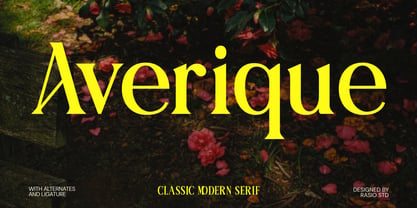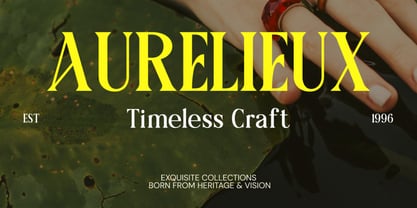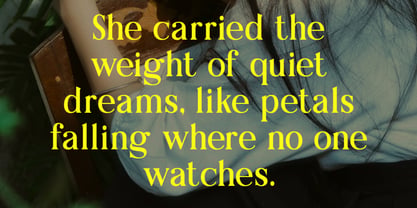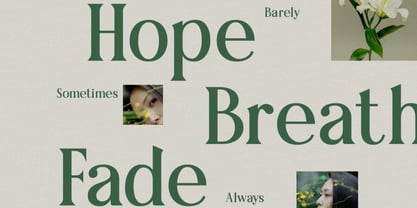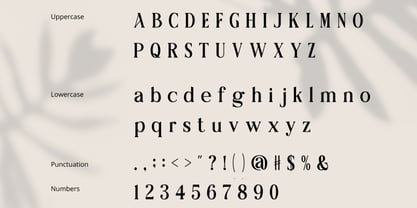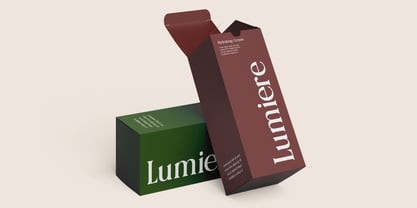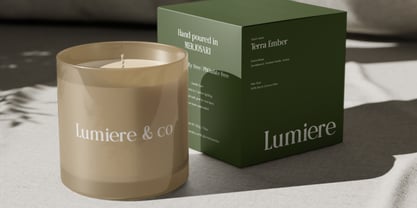
Averique
by Rasio Studio
The Averique Font Family was designed by Fajar Indra and published by Rasio Studio. Averique contains 1 styles. More about this family
Averique is a sophisticated serif display font that blends timeless elegance with a contemporary aesthetic. Its sharp contrast, unique letter cuts, and refined geometry bring a sense of high fashion and editorial allure. Perfectly balanced between modern flair and classic form, Averique stands out with graceful curves and confident character shapes. With uppercase, lowercase, numerals, and punctuation, Averique is ideal for luxury branding, magazine covers, logo design, and elegant packaging. It captures the spirit of modern sophistication while maintaining a heritage-inspired feel.